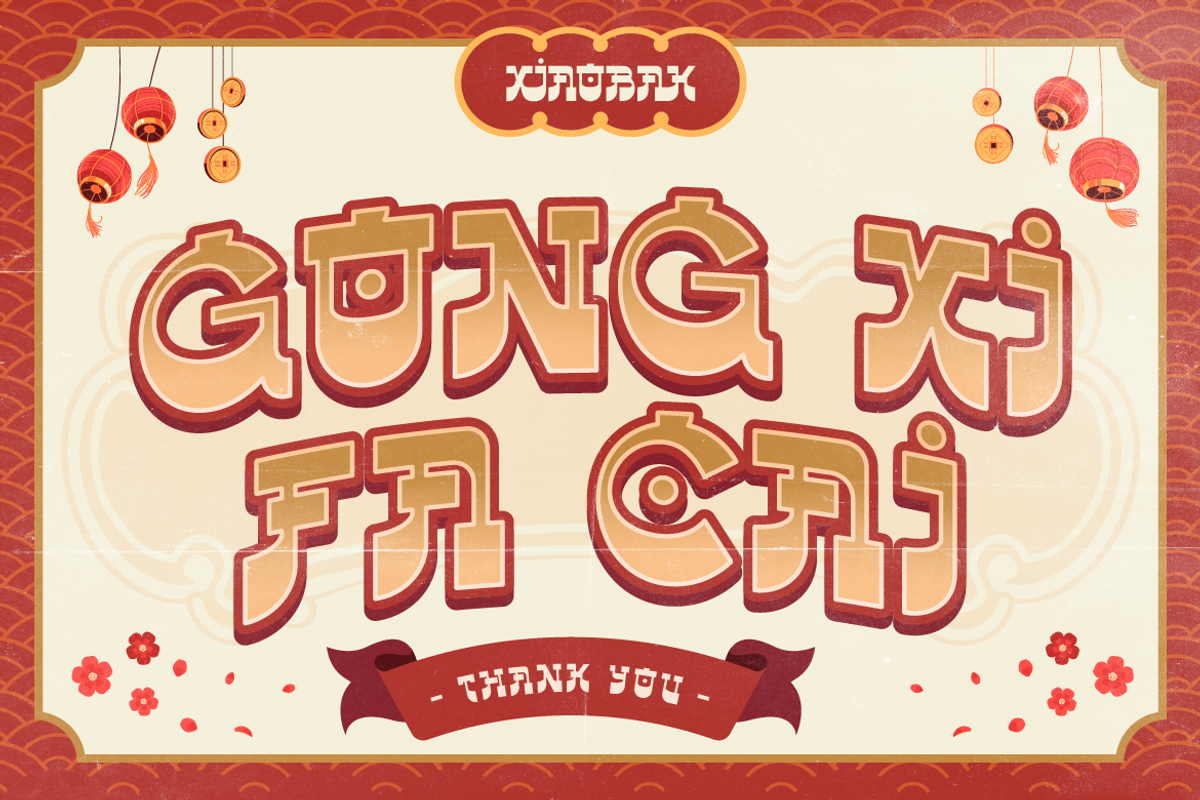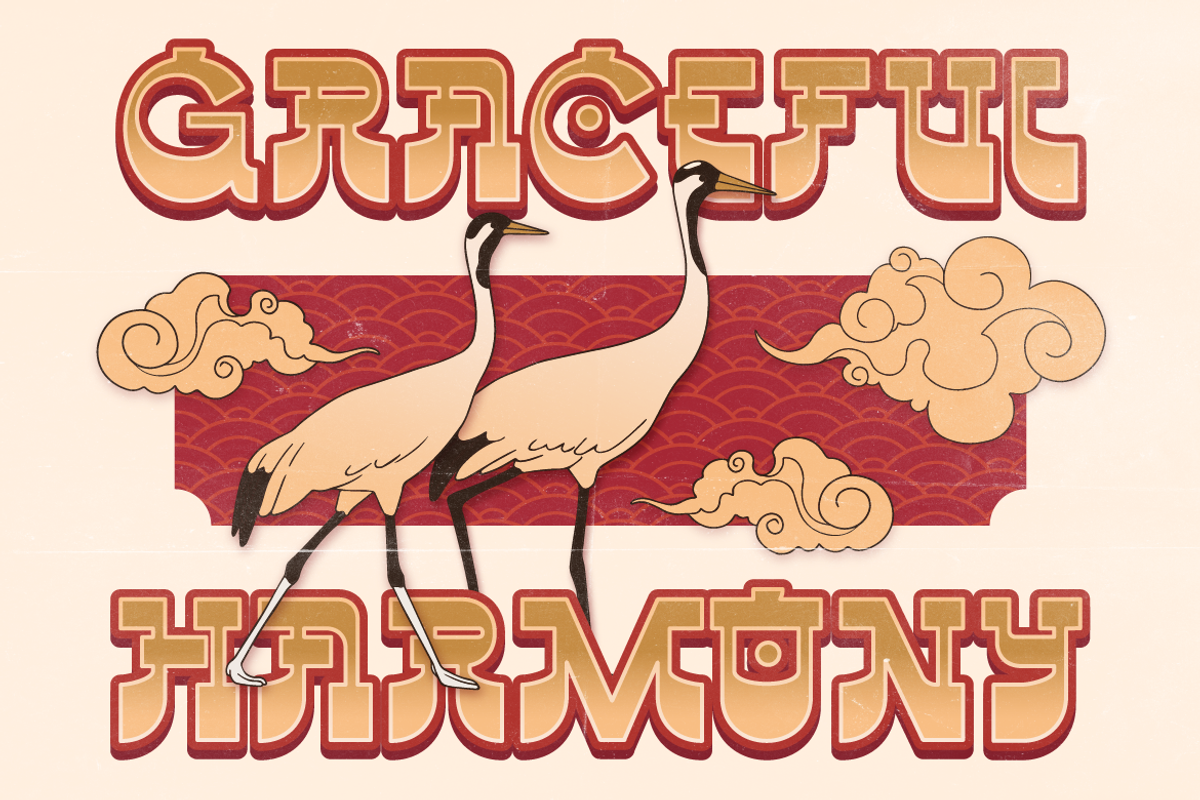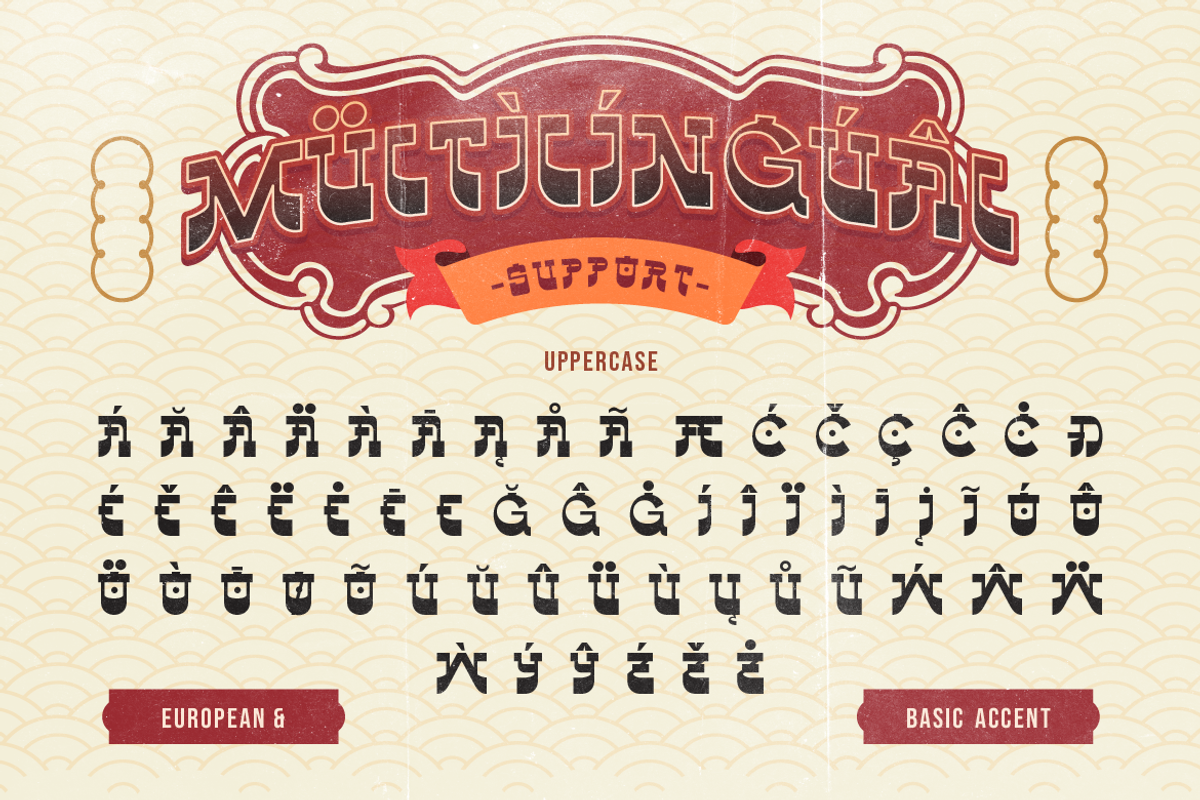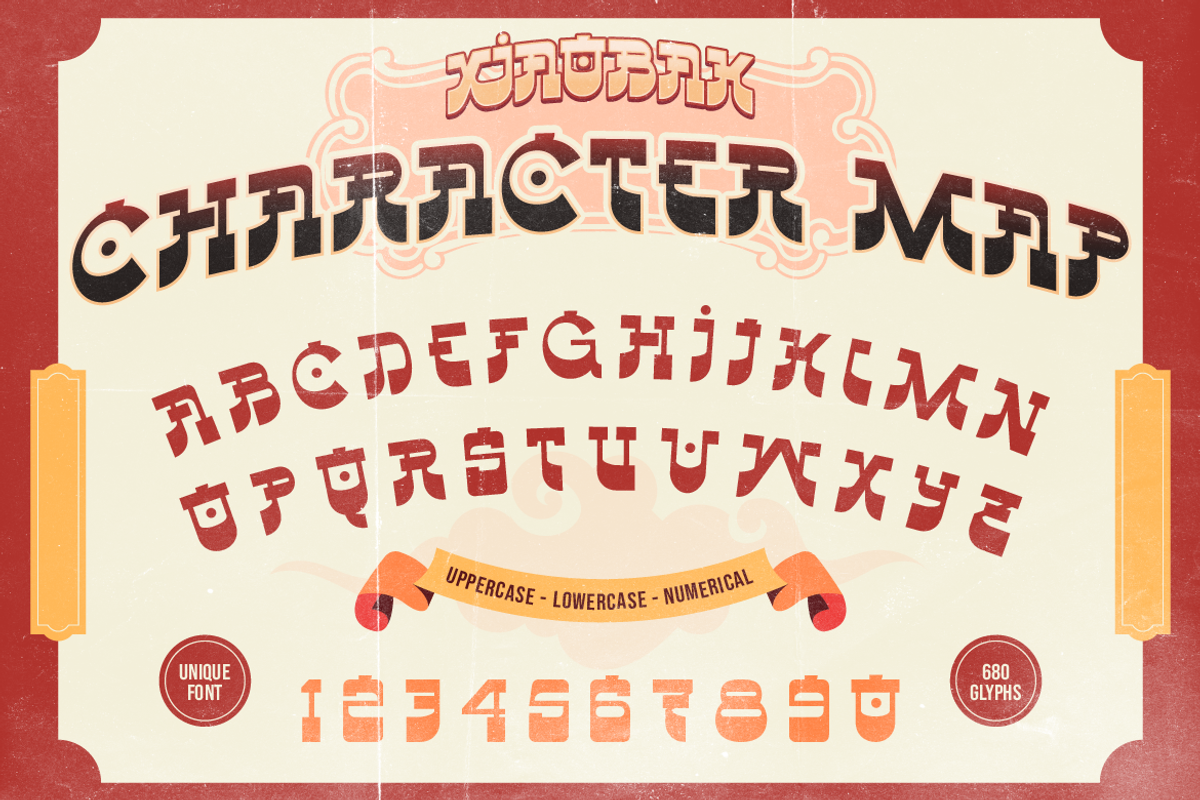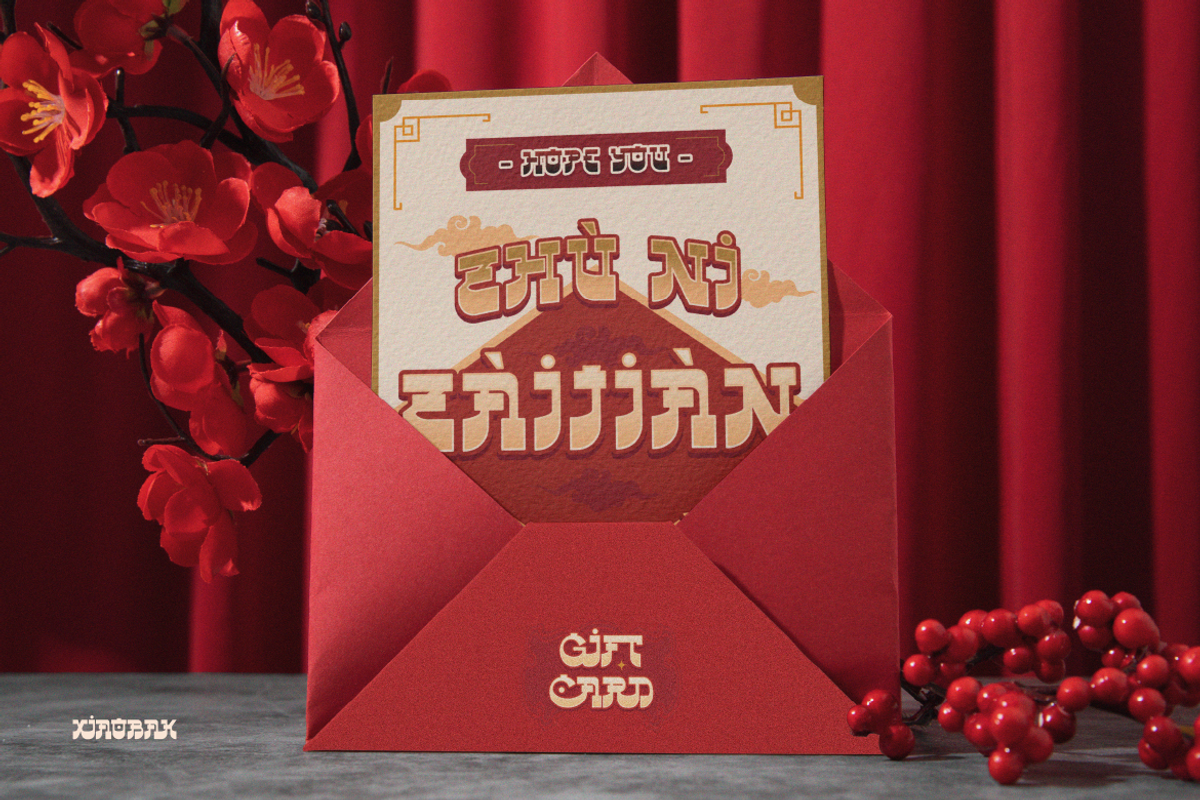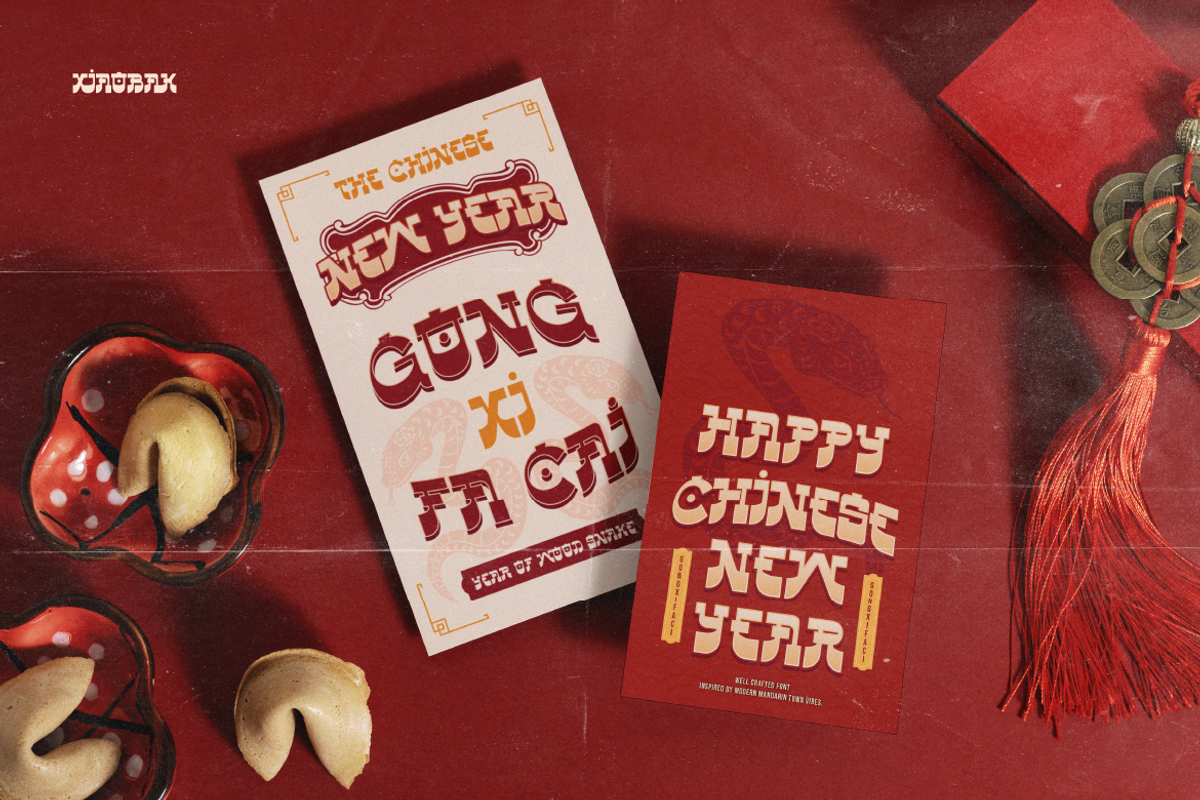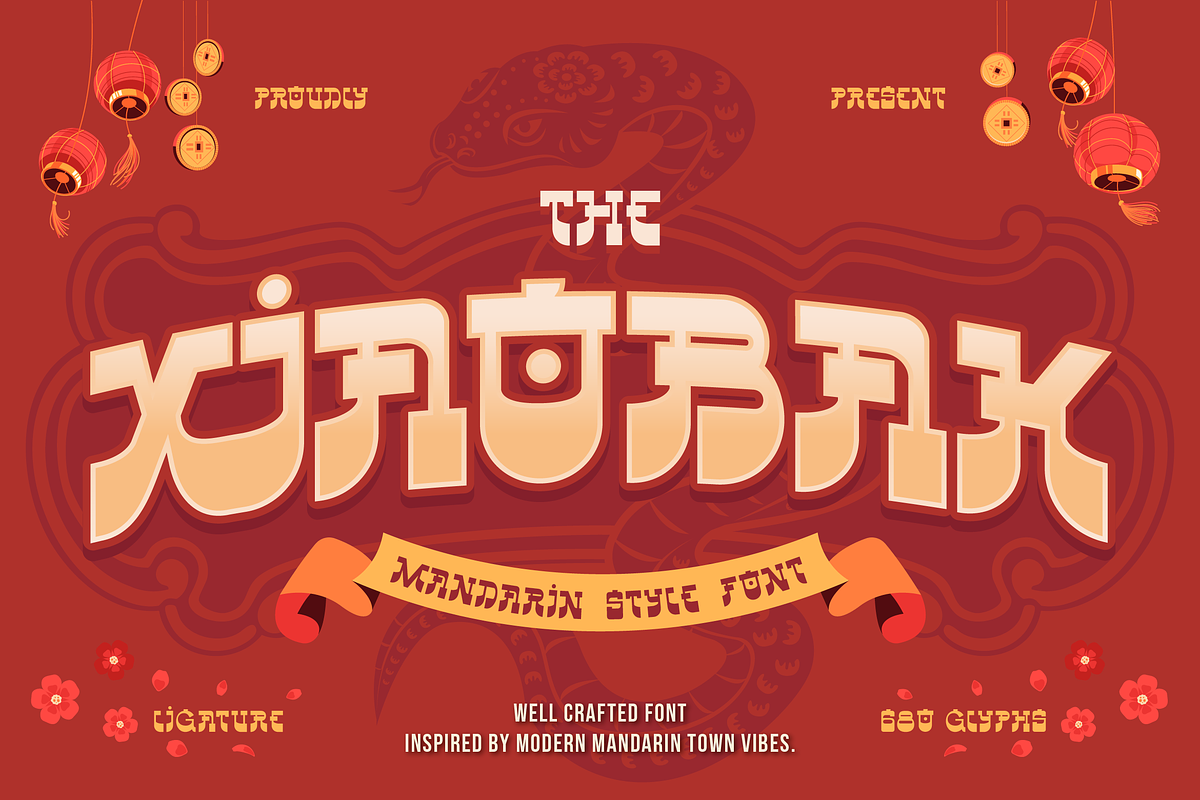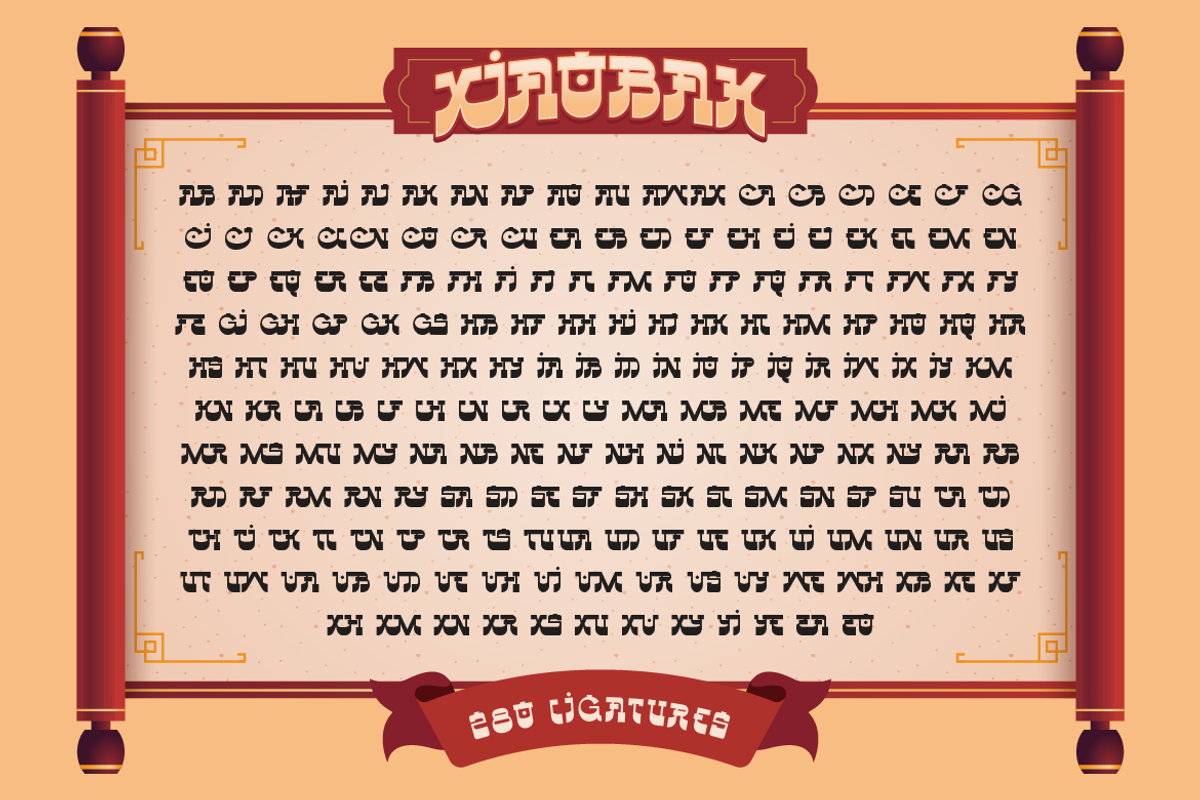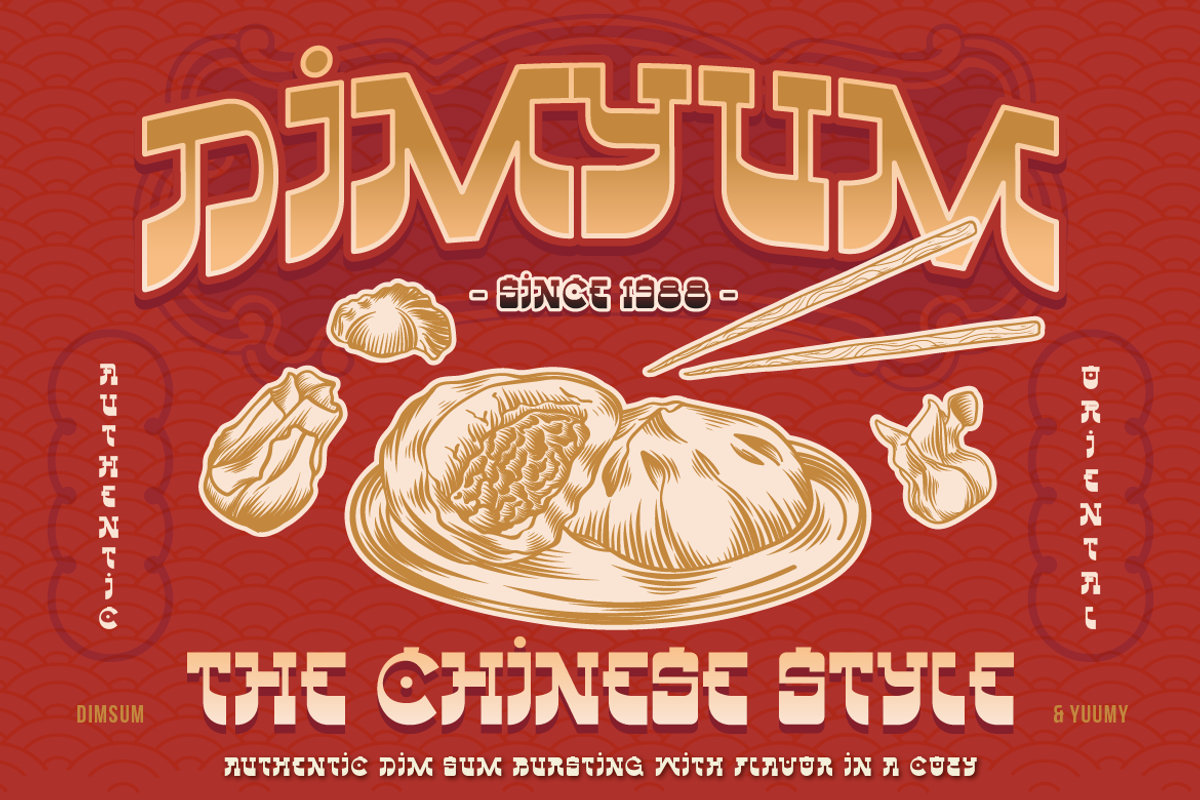
Xiaobak
Chinese New Year is coming up, so we're excited to introduce a new font that you'll really love, Xiaobak. Xiaobak is latin characters inspired by modern mandarin town vibes. This font characterized of bold, energetic and playful curves, also with the ligatures this font is very eye catching. Xiaobak is very unique font included with multilingual accent. Ideal for invitation, urban fashion, food and beverage, poster and any design project that need Chinese touch or mandarin style.
- A - Z set (All Caps - Uppercase & Lowercase)